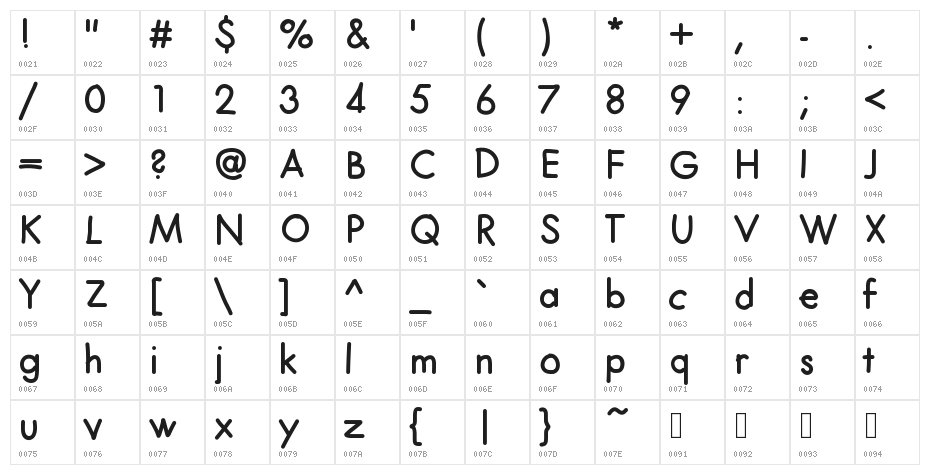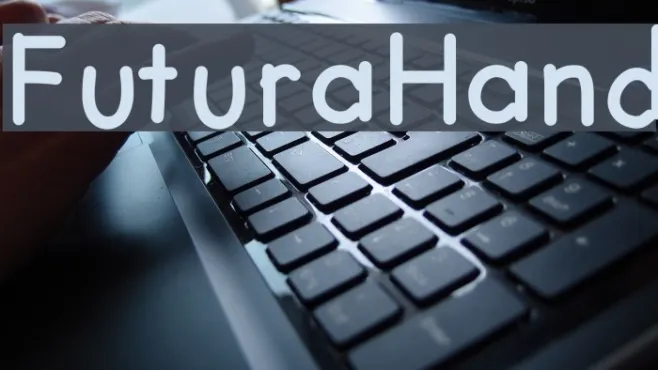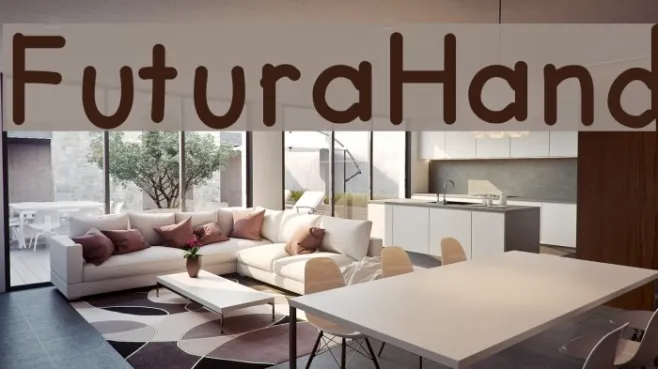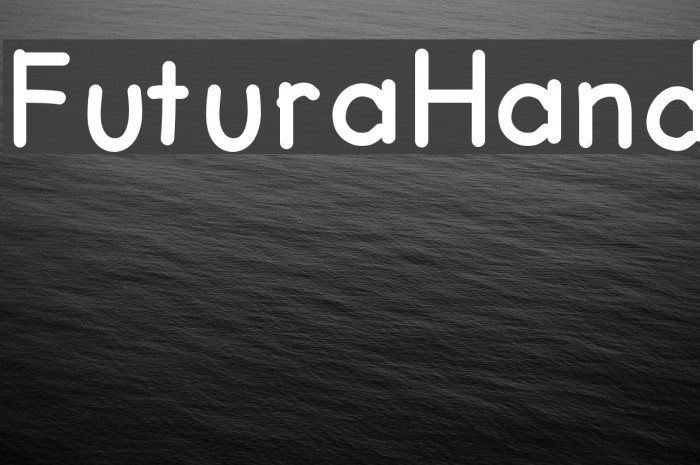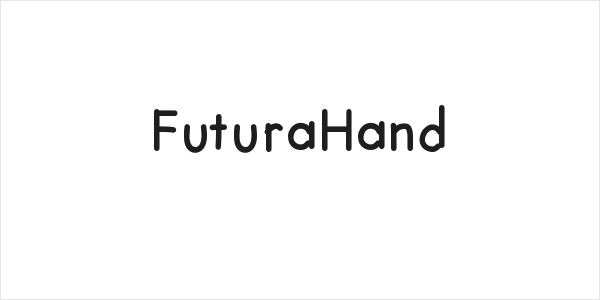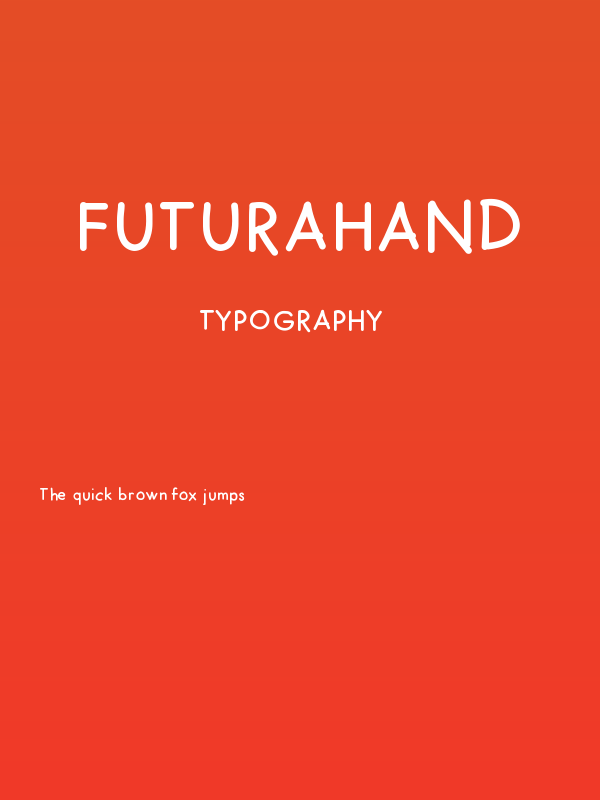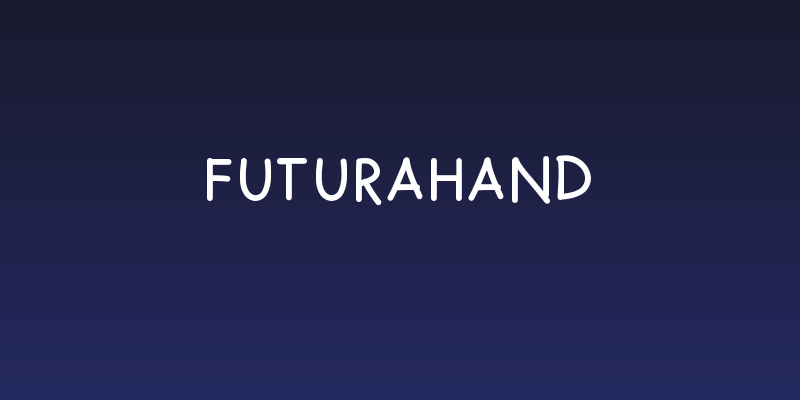
FuturaHand Font
FuturaHand Description
This font features a playful and casual handwritten style, characterized by rounded edges and a friendly appearance. The letters are evenly spaced, with a consistent stroke width that gives it a uniform look. The uppercase and lowercase letters maintain a harmonious balance, while the numerals and special characters complement the overall design. This font's simplicity and approachability make it suitable for a variety of informal applications, offering a modern yet personal touch.
| Use Case | Headlines, Informal text, Branding |
| Proposed Projects | Ideal for children's books, greeting cards, casual branding, and social media graphics. |